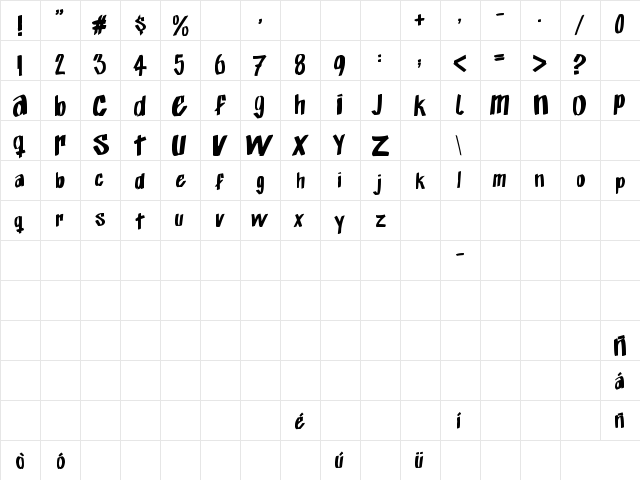
Exito_Free_Hand Regular
Design Context for Exito_Free_Hand Typeface
Exito_Free_Hand flows with the natural rhythm of handwritten lettering, making it ideal for designs that call for warmth and personal expression.
Font Pairing: Combine Exito_Free_Hand with a simple geometric sans for maximum contrast — the tension between flowing curves and clean structure is a classic typographic pairing.
Pro Tip: Pair Exito_Free_Hand with a clean sans-serif for supporting text. The contrast between fluid script and geometric structure creates an elegant typographic hierarchy.